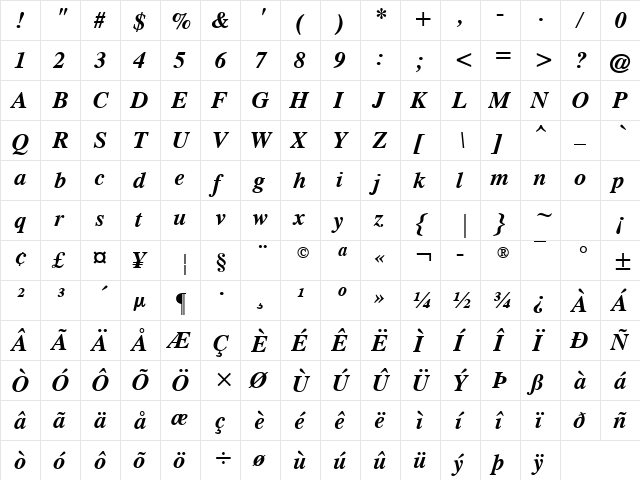
CG Times Bold Italic Font Preview
Design Context for CG Times Typeface
CG Times takes a measured approach to typography — its balanced proportions and neutral character make it a reliable workhorse for both digital and print work. Its italic angle brings a sense of urgency and motion to the letterforms. The heavy weight commands attention and anchors typographic hierarchies.
Pro Tip: Try CG Times for annotation and caption copy alongside an upright companion — the contrast in angle creates a dynamic but ordered typographic system.